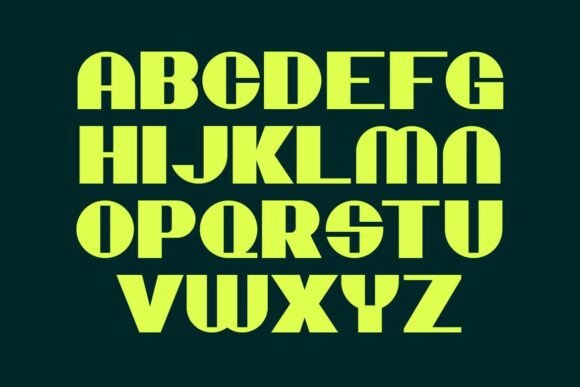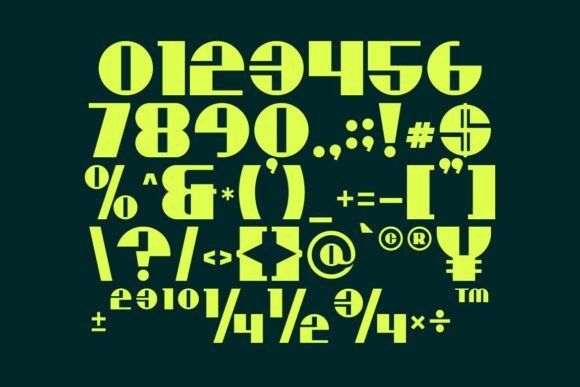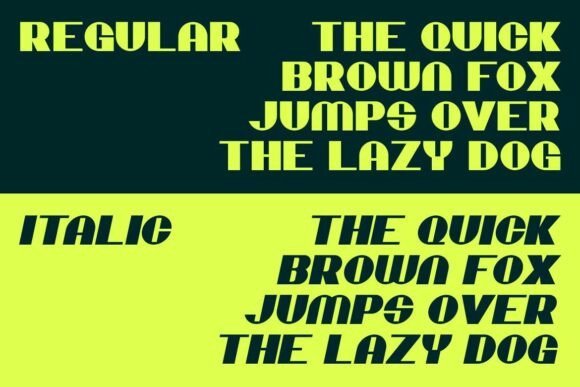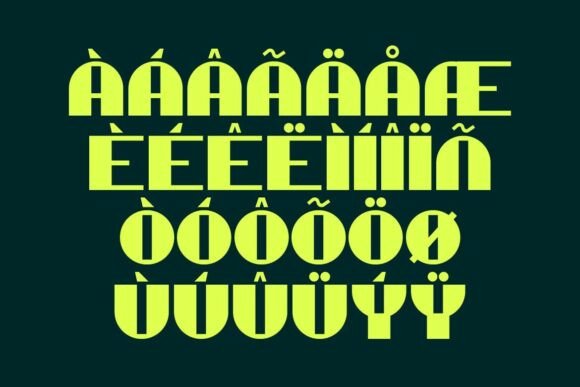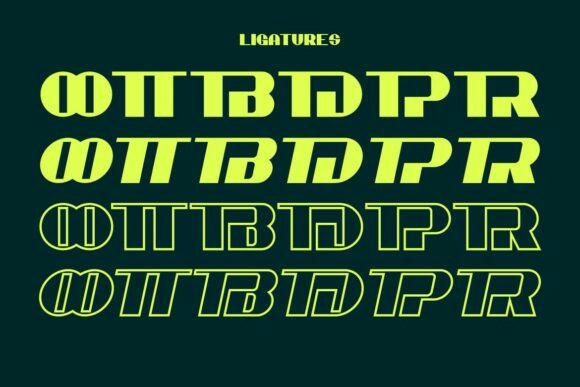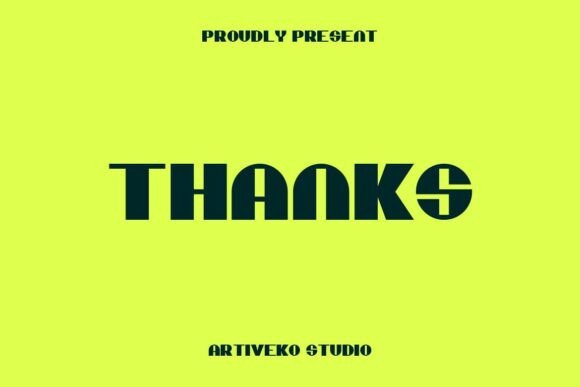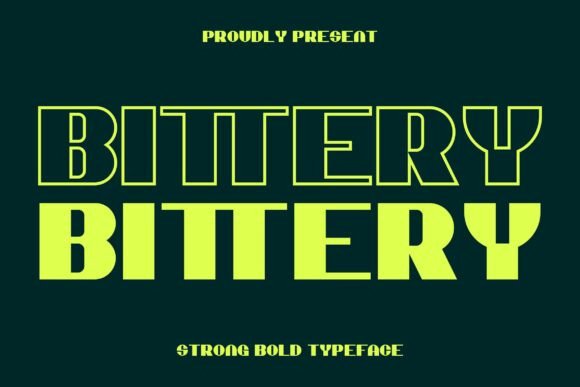
Unleash the Power of Bittery Font: Elevate Your Typography with Modern Sophistication
In the world of typography, a font can make or break the visual impact of a design. For designers and crafters looking to add a touch of modern sophistication to their projects, Bittery Font is an excellent choice. This striking sans display font is designed to bring power, clarity, and elegance to your typography, making it perfect for a wide range of applications.
The Characteristics of Bittery Font
Bittery Font boasts thick, well-defined strokes that give it a strong and confident appearance. Its sharp geometry and clean proportions make it a versatile font that can be used in various contexts, from impactful headlines to logo design, posters, sports graphics, product packaging, and high-energy branding projects. The font’s modern aesthetic is sure to grab attention and leave a lasting impression.
Key Features of Bittery Font
- Thick, well-defined strokes: Giving Bittery Font its distinctive look and feel.
- Sharp geometry: Providing a clean and modern appearance.
- Clean proportions: Ensuring the font remains legible and balanced.
- Versatile: Suitable for a wide range of design projects, from print to digital.
Perfect for Impactful Headlines and Logo Design
Bittery Font is ideal for creating bold and eye-catching headlines that demand attention. Its thick strokes and sharp geometry make it perfect for titles, headings, and slogans that need to stand out. Additionally, the font’s clean and modern aesthetic makes it an excellent choice for logo design, allowing businesses to establish a strong brand identity.
Elevate Your Design Projects with Bittery Font
Whether you’re working on a poster, sports graphic, product packaging, or high-energy branding project, Bittery Font is the perfect choice. Its versatility and modern sophistication make it an excellent addition to any design project, allowing you to:
- Create bold and eye-catching titles and headings.
- Establish a strong brand identity.
- Add a touch of modern elegance to your designs.
- Stand out in a crowded design landscape.
Tips for Using Bittery Font Effectively
To get the most out of Bittery Font, consider the following tips:
- Use it sparingly: Bittery Font is a bold and attention-grabbing font, so use it sparingly to avoid overwhelming your design.
- Pair it with complementary fonts: Combine Bittery Font with complementary fonts to create visual interest and add depth to your design.
- Experiment with colors and textures: Don’t be afraid to experiment with different colors and textures to add an extra layer of visual interest to your design.
Bittery Font is a powerful and versatile sans display font that’s perfect for designers and crafters looking to add a touch of modern sophistication to their projects. With its thick, well-defined strokes, sharp geometry, and clean proportions, Bittery Font is ideal for impactful headlines, logo design, posters, sports graphics, product packaging, and high-energy branding projects. By incorporating Bittery Font into your design toolkit, you’ll be able to create bold, eye-catching designs that demand attention and leave a lasting impression.